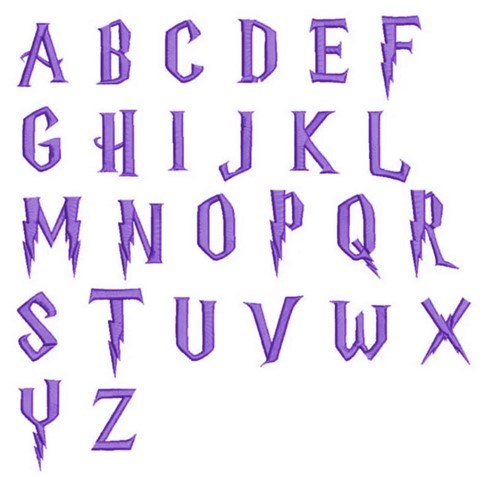
Unicorn Creatives is happy to present Wizard Font Embrilliance machine embroidery font which has Decorative machine embroidery font with sharp edges and lightning-like accents, perfect for holiday designs. Ideal for themed decorations and projects on pillows or banners. Available in BX font and Embrilliance formats. included. If you would like to view more embroidery fonts and alphabets please search our embroidery fonts page.